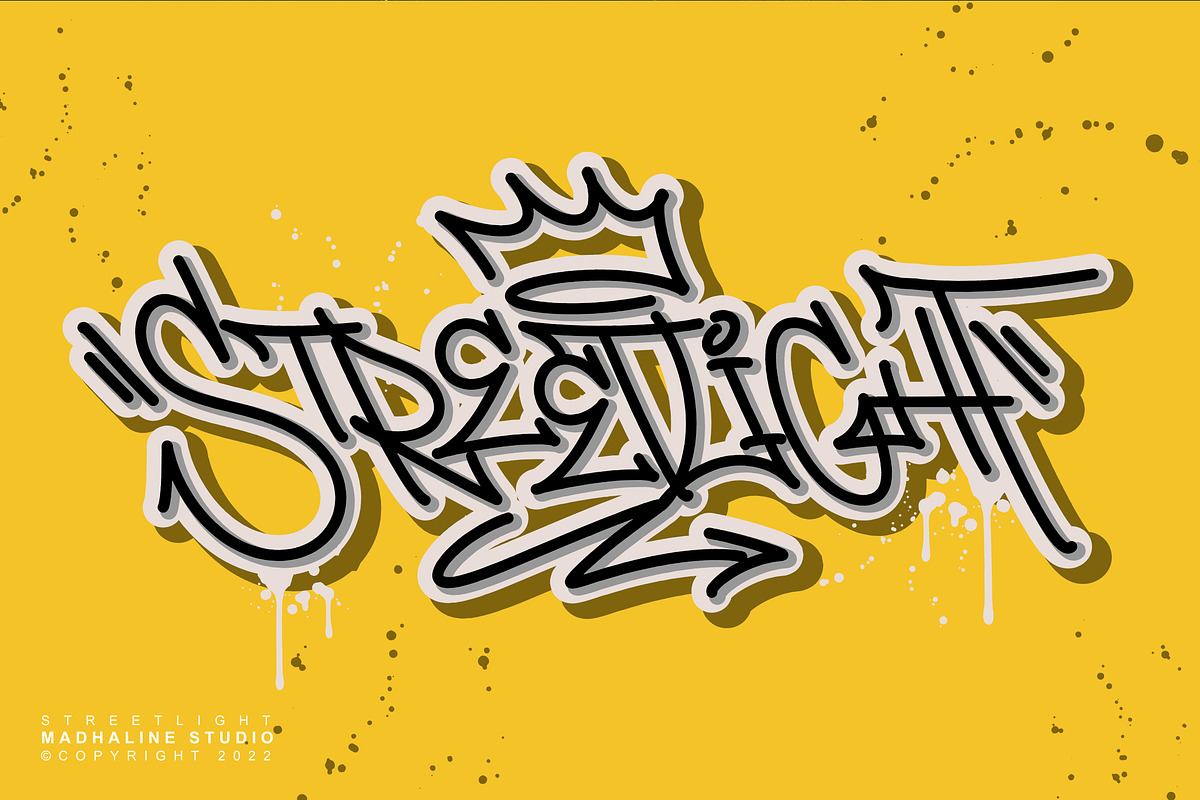
Streetlight Graffiti Font Free Download is a bold, rebellious typeface inspired by raw street art and urban graffiti culture. With its spray-painted strokes, edgy texture, and freeform style, this font is perfect for music posters, streetwear branding, skate culture designs, album covers, and underground event flyers.
Streetlight brings the gritty authenticity of back-alley walls to your creative projects, offering expressive energy and visual impact. It often includes extras like paint splatters or stylistic alternates, giving your designs an unfiltered, handcrafted vibe.